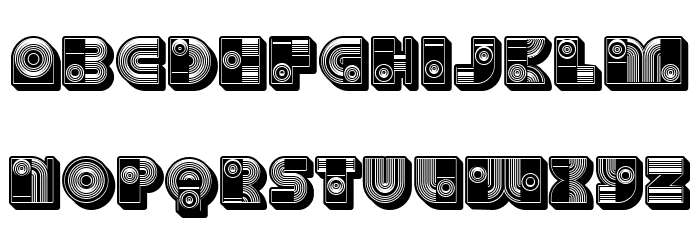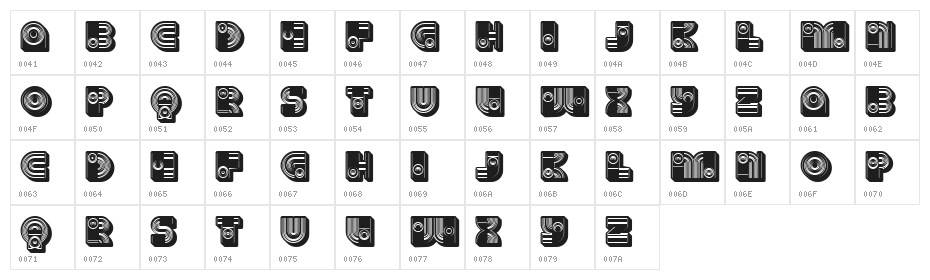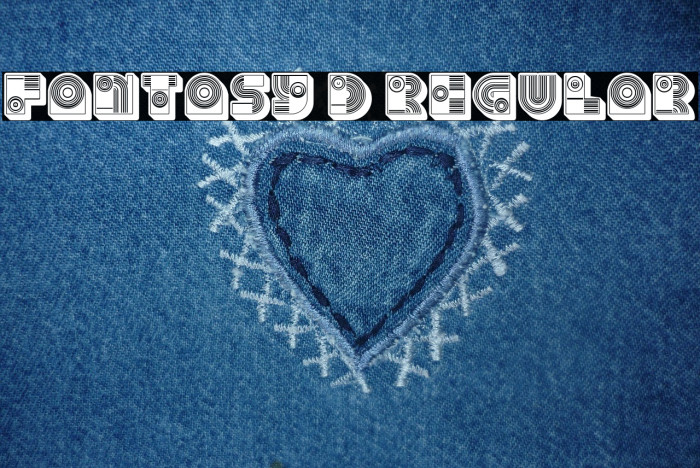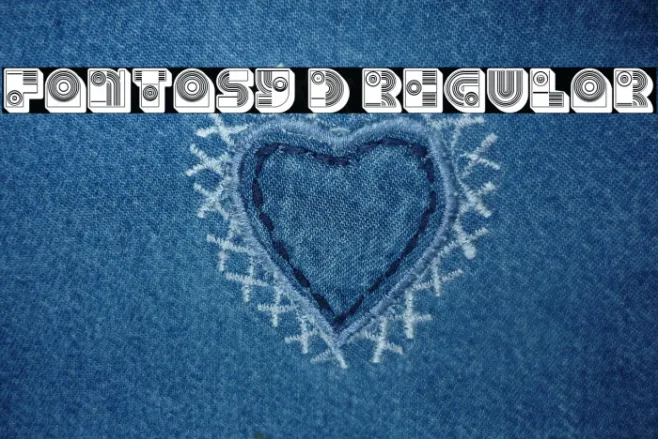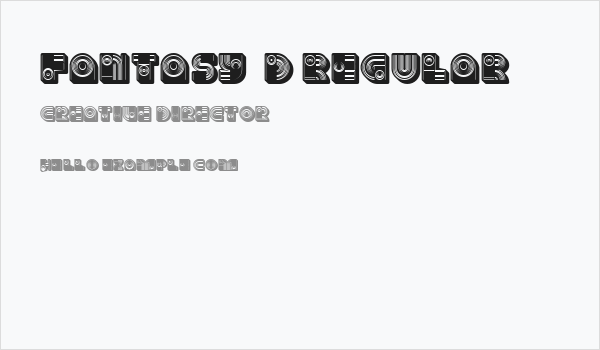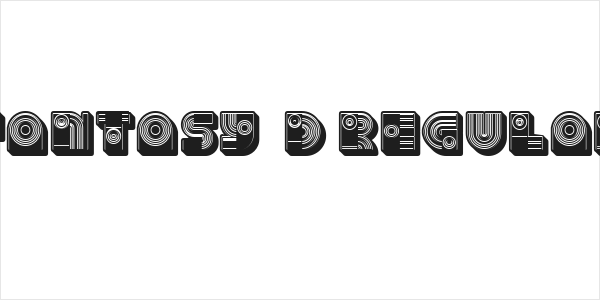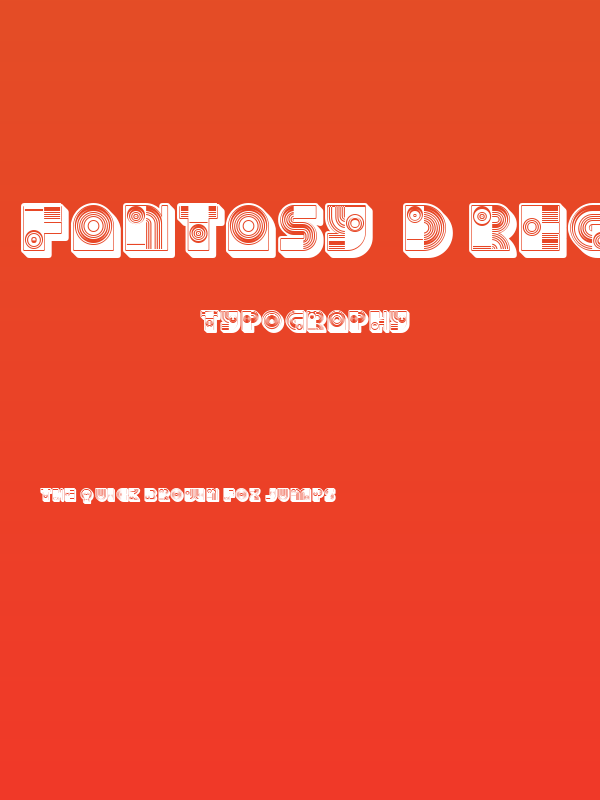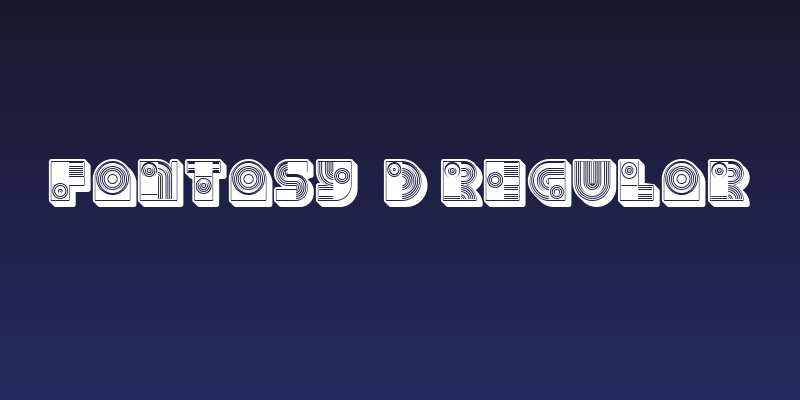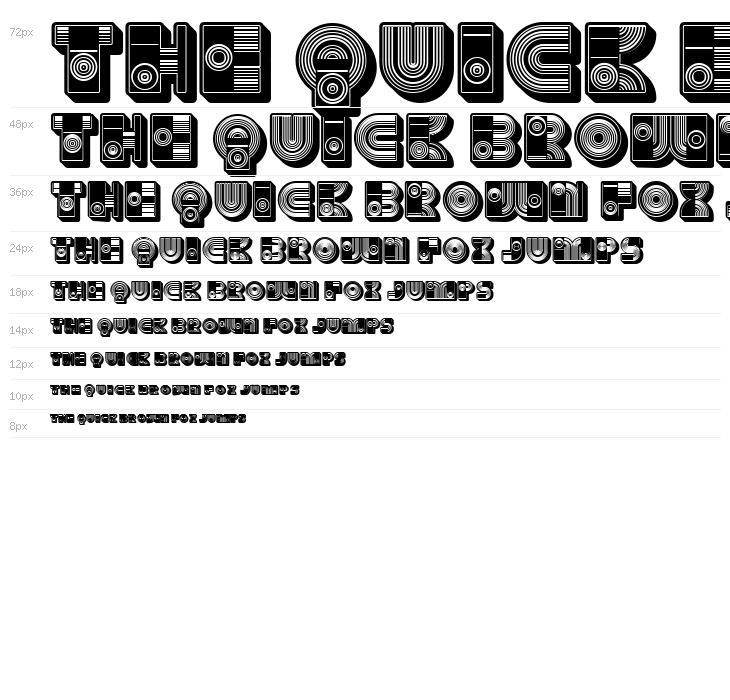
Fantasy 3D Regular Font
Fantasy 3D Regular Description
This font features a bold, three-dimensional design with intricate line work and geometric patterns. Each character is crafted with a layered effect, giving it a sense of depth and complexity. The style is highly decorative, with a futuristic and playful vibe that captures attention. The letters are constructed with a combination of solid and striped elements, creating a dynamic visual impact. This font is ideal for projects that require a standout, artistic touch, such as posters, album covers, or branding for creative industries.
Overall StyleFuturistic, Playful
Proposed ProjectsIdeal for posters, album covers, creative branding, and any project needing a standout artistic touch.